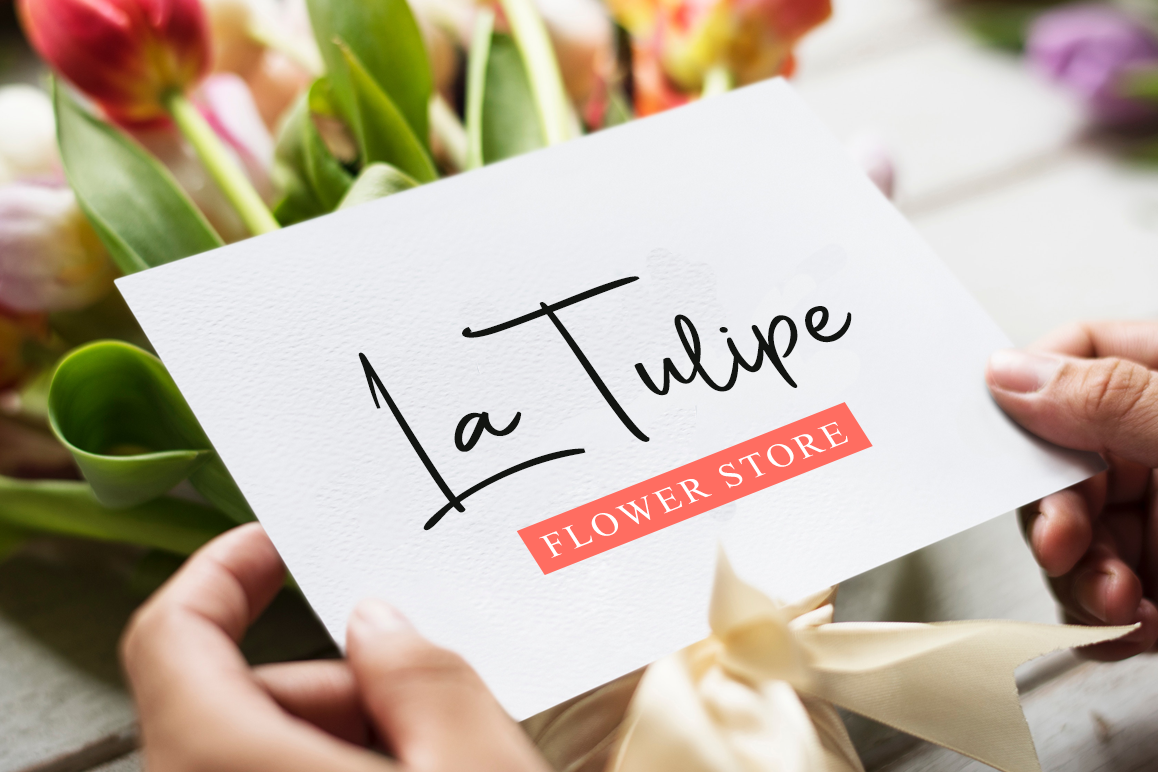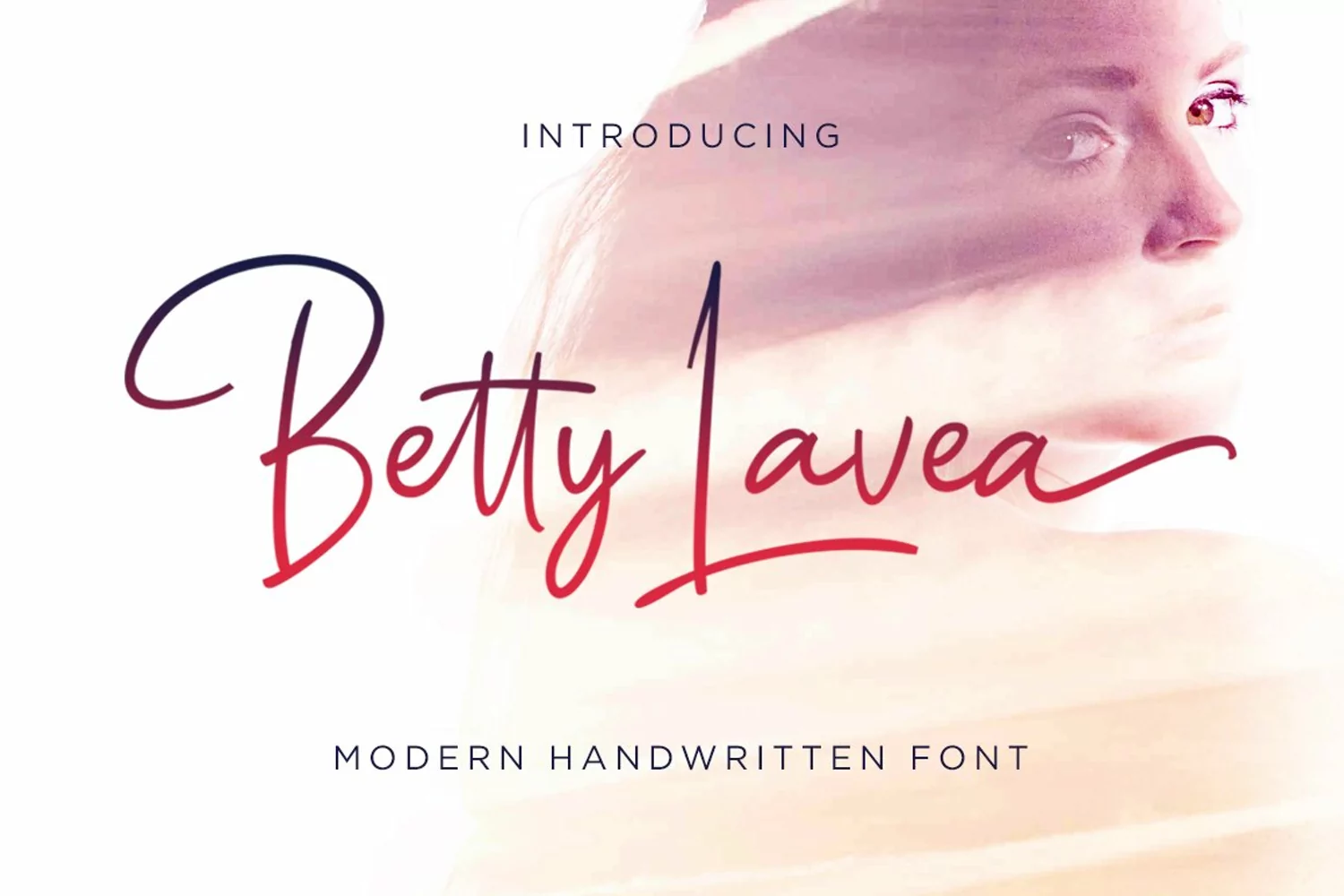
The Betty Lavea is a modern handwritten font. It has a natural handwritten style which will give any design a hand touch.
It’s perfect for branding, packaging, signatures, labels, and much more!